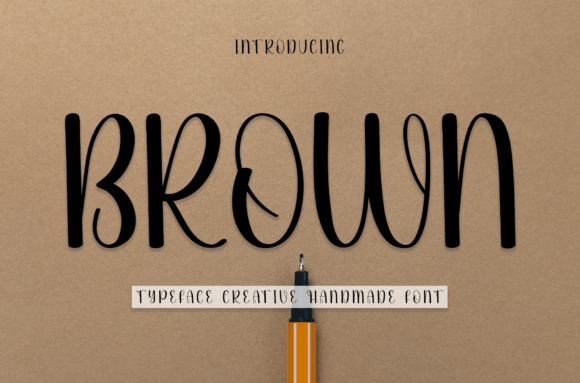
Introducing Brown Font, the latest addition to our script font collection! Created by the talented William Jhordy, Brown Font is a sweet and friendly handwritten font that is perfect for adding a touch of personality to your designs.
This font is ideal for those who are looking for a Font For Vinyl Lettering, as its fresh and neat style makes it perfect for crafting eye-catching designs that will stand out from the crowd. Whether you're creating wedding invitations, greeting cards, or any other design that needs a fun touch, Brown Font is the perfect choice.
With its smooth and flowing curves, Brown Font adds a touch of elegance and sophistication to any design. Its versatility and ease of use make it perfect for both novice and experienced designers alike.